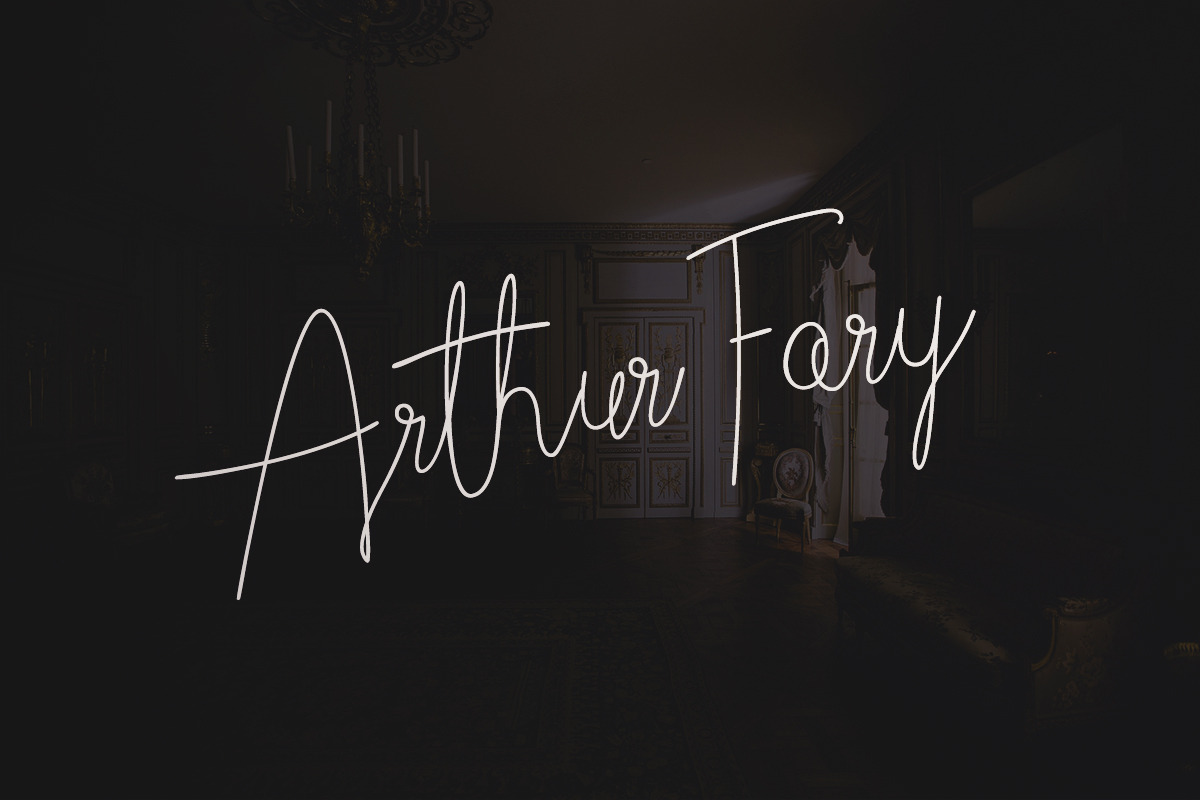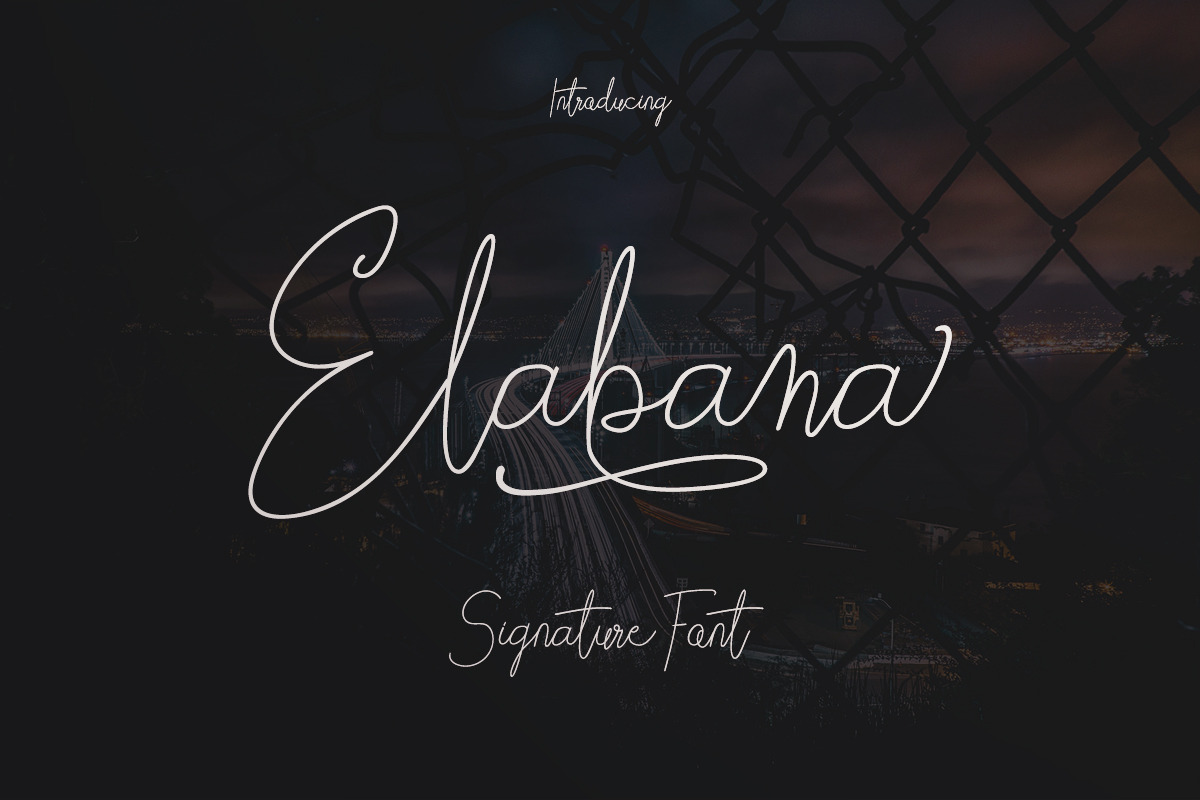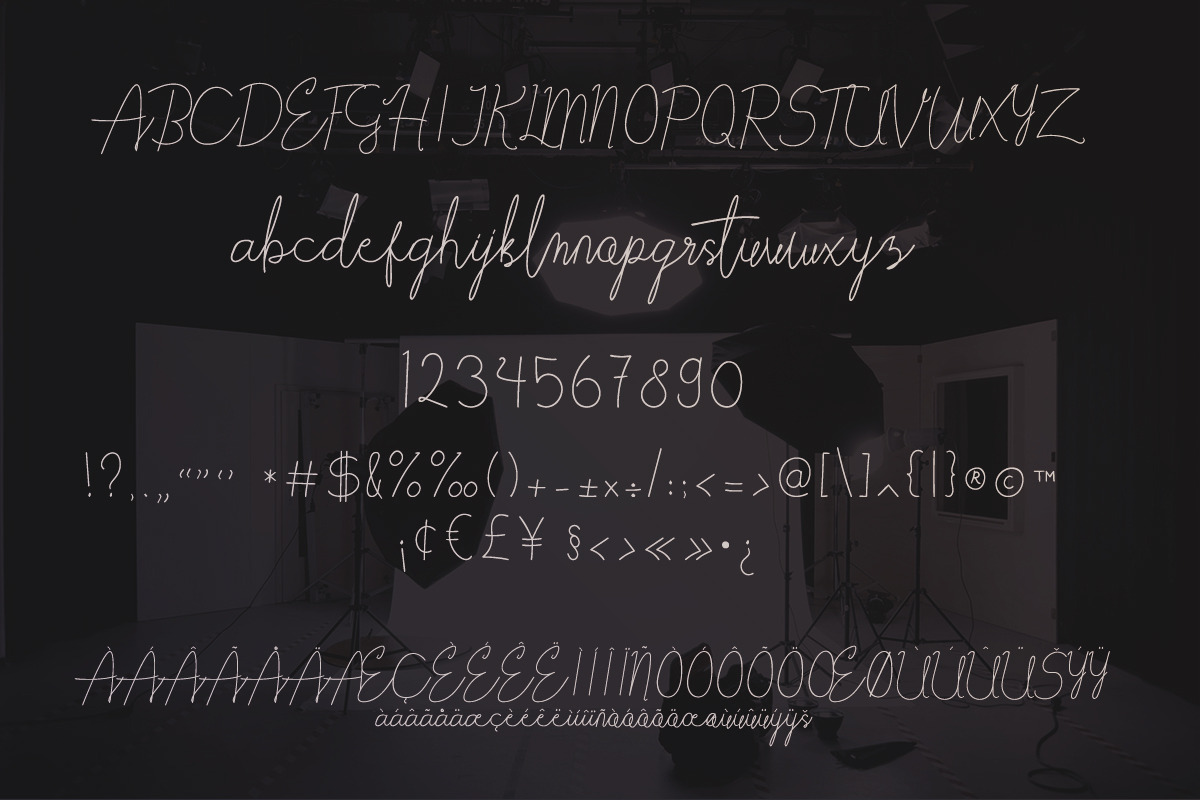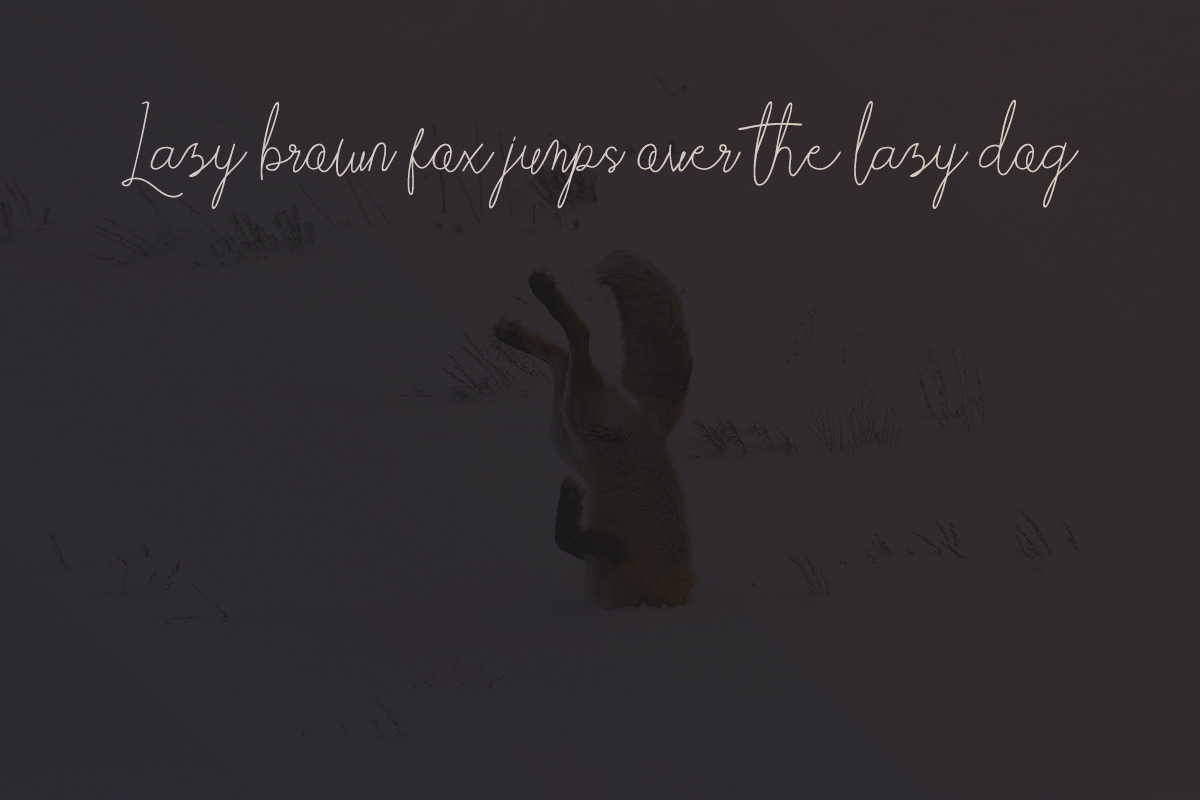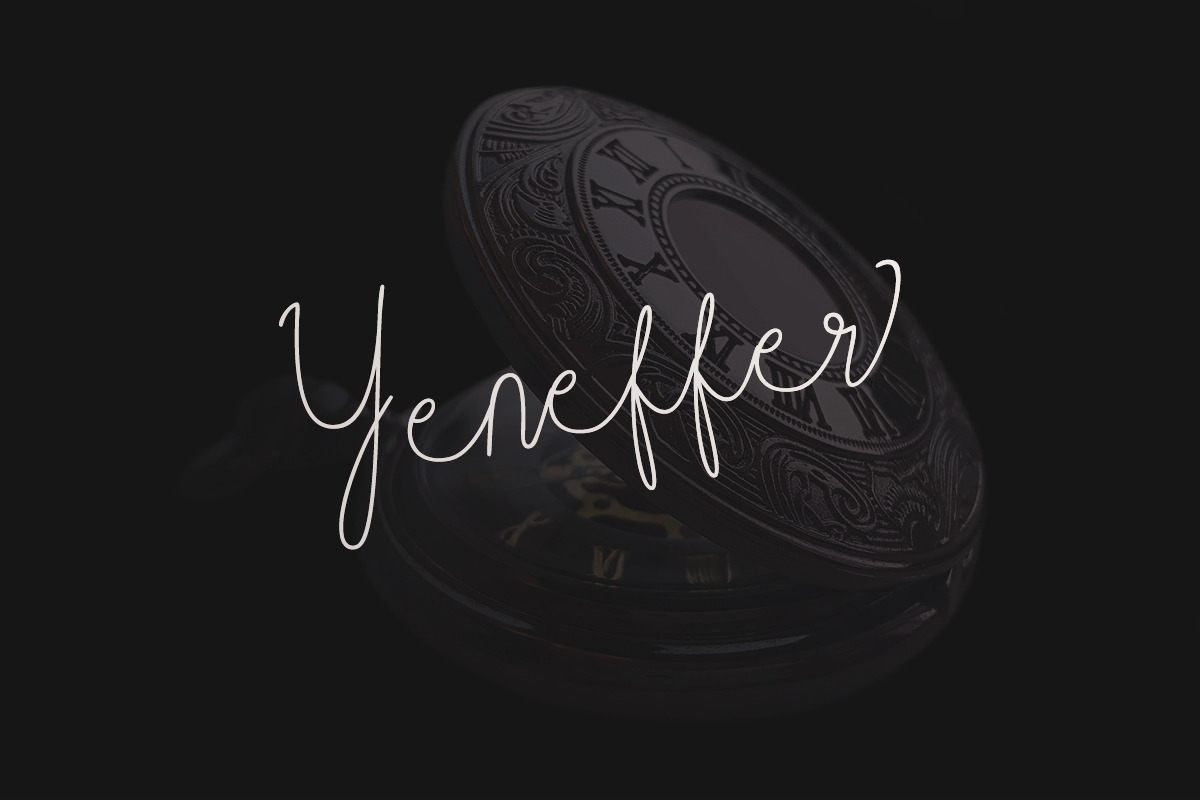
Elabama - Signature Font
Elabama is signature font created especially for digital signature but also looks good on any lettering project. This font is great for signature, branding, book, magazine, poster, and other design project.
- Standard Symbol
- Multilingual Support ÀÁÂÃÅÄÆÇÈÉÊËÌÍÎÏÑÒÓÔÕÖŒØÙÚÛÜŠÝŸ